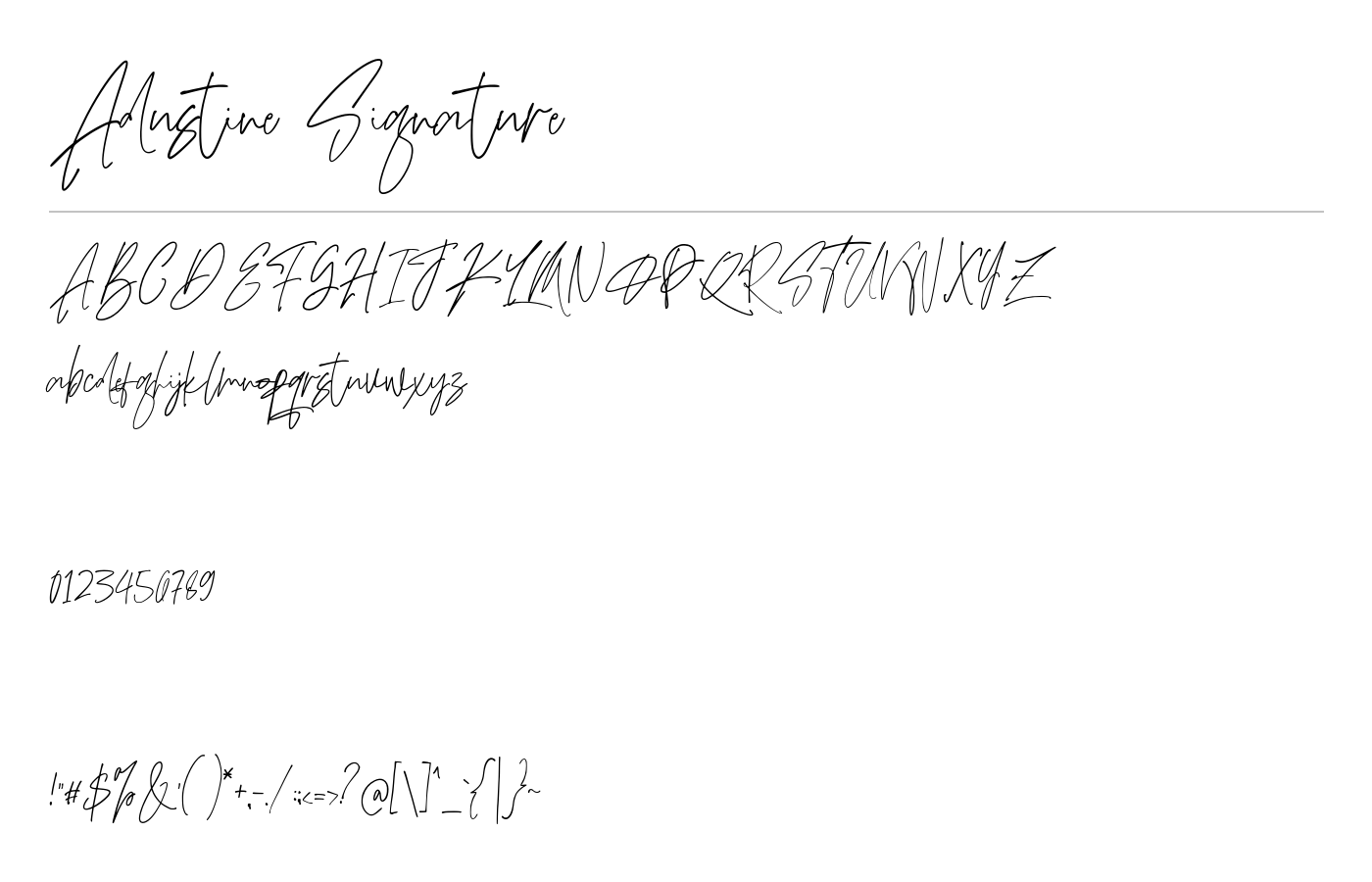
Adustine Signature Font is a delicate and elegant handwritten script that mimics natural, flowing handwriting with thin, sharp strokes and a high contrast between thick and thin lines. Its slim, airy letterforms convey a modern yet personal feel, making it perfect for luxury branding, wedding invitations, and stylish logos that require an intimate, sophisticated touch. This font shines in designs that aim for a refined, artistic vibe with a contemporary flair.
Adustine Signature Font
About Adustine Signature Font
| Font family | Adustine Signature Font |
| Designer | Ferdiansyah_Dzulka Elfira_Tebaltipisstd_TTS |